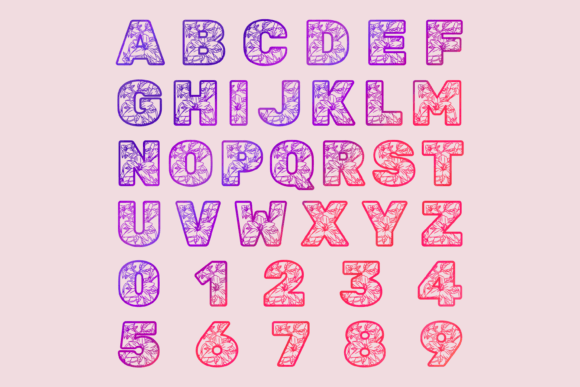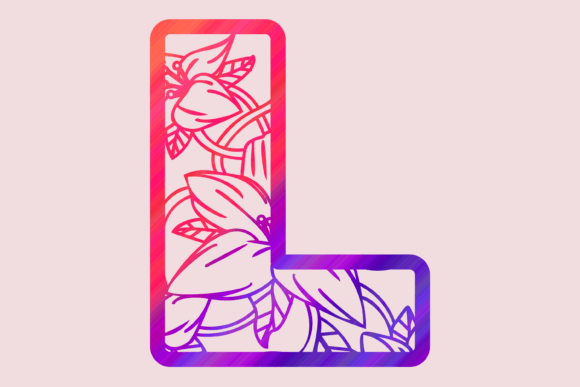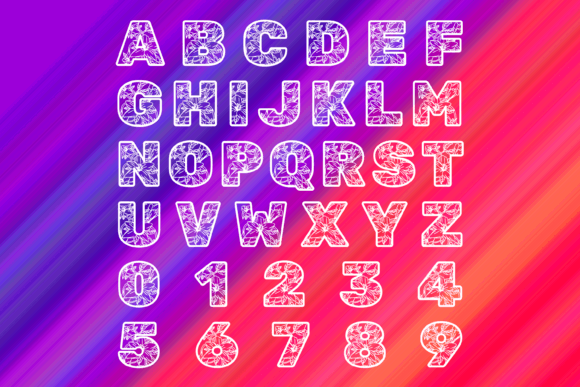
Introduction to Lily Lace Font
As you sit down at your crafting table, surrounded by scraps of paper, glue, and a multitude of creative possibilities, you can’t help but feel a sense of excitement and anticipation. What will your next masterpiece be? Will it be a beautiful card for a loved one, a unique gift for a friend, or perhaps a stunning decoration for your home? Whatever your creative project may be, one thing is certain: the right font can make all the difference.
Enter the Lily Lace Font, a stunning botanical lace font that will add a touch of elegance and sophistication to any design. With its delicate, intricate details and high-quality design, this font is a must-have for any designer or crafter looking to take their creations to the next level.
Key Features of Lily Lace Font
- High-quality, intricate design perfect for creative projects, such as wedding invitations, scrapbooking, and other paper crafts.
- Features a delicate, lace-like pattern with a transparent background, allowing for easy layering and customization.
- Unique characteristics include its intricate, hand-drawn design and delicate texture, adding a touch of elegance to any creative project.
Honest Review: Lily Lace Font
I recently came across the Lily Lace Font, a beautiful design resource that caught my eye. As a designer, I was excited to dive in and see if it lived up to its pretty name.
Here are some things that work well with the Lily Lace Font:
- ✨ High-quality design: The font is incredibly detailed and has a lovely, delicate feel to it.
- ✨ Versatile: It’s perfect for a variety of creative projects, from wedding invitations to baby shower decorations.
- ⚠️ Limited characters: The font is only available in uppercase and lowercase letters, with a limited set of punctuation marks.
- ⚠️ No transparent background: While this isn’t a huge issue, it would be nice to have the option to create designs with a transparent background.
Overall, I’m really impressed with the Lily Lace Font. It’s a beautiful, high-quality design resource that’s perfect for creative projects. While it has some limitations, it’s definitely worth checking out – especially if you’re looking for a free download to add some elegance to your designs.
Getting the Most Out of Lily Lace Font
For the best results, use the Lily Lace Font on a transparent background to create a beautiful, delicate look. Experiment with different font sizes and styles to add visual interest to your design.
The Lily Lace Font is perfect for wedding invitations, baby shower invitations, and other creative projects that require a touch of elegance. It’s also great for adding a decorative element to your blog posts or social media graphics.